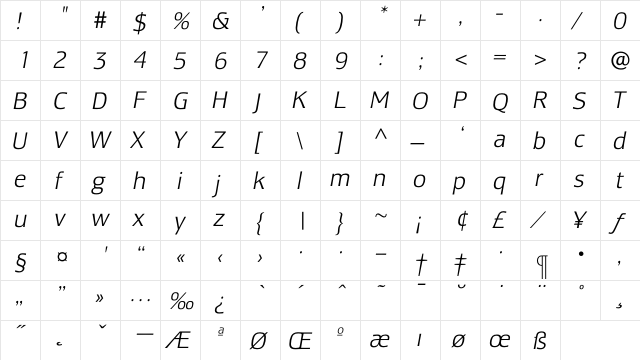
LesmoreLightItalic Regular Font Preview
LesmoreLightItalic Regular
Design Context for LesmoreLightItalic Typeface
LesmoreLightItalic is a composed and adaptable typeface that performs quietly and consistently across a wide range of design contexts. The slanted form adds forward momentum and visual energy. The delicate stroke weight brings airiness and refinement to layouts.
Pro Tip: Use LesmoreLightItalic for emphasis, pull quotes, and subheadings where its slanted energy can add rhythm to the layout.